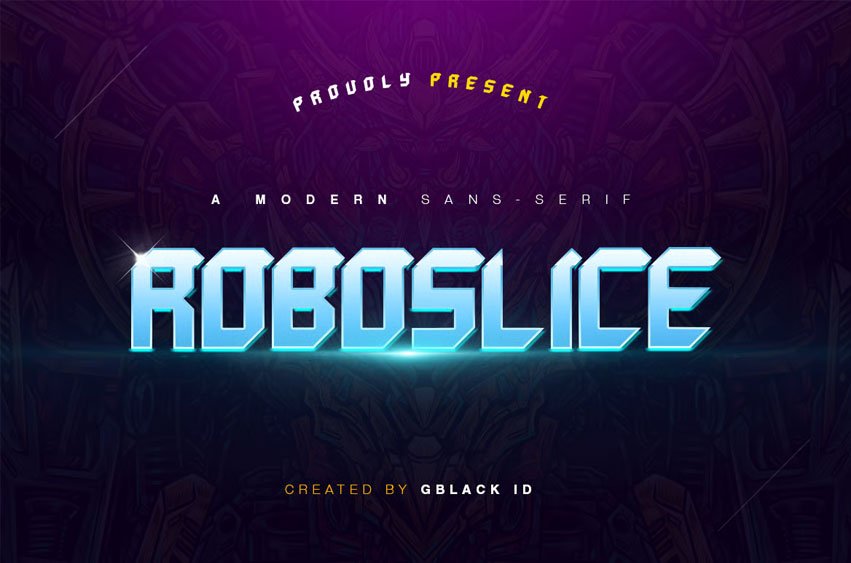
Roboslice Font represents the best of organic curves with sharp modern edges. Sophisticated and edgy, it’s everything you want out of a display font. It looks amazing at large sizes and, also, small sizes.
ABCDEFGHIJKLNOPQRSTUVWXYZ
abcdefghijklnopqrstuvwxyz
1234567890
. , ‘ ” ( ) / -?!$&
Looks great Esport Logo.